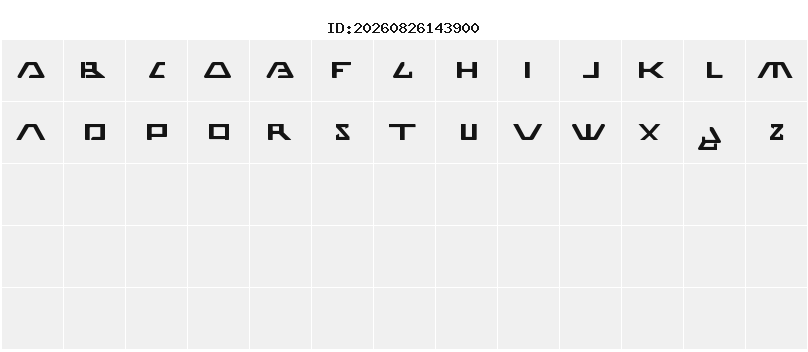
Walkman Preview
• Font Name: Walkman
• Full Font Name: Walkman
• Version: Version 1.00 August 17, 2004, initial release
About Walkman.ttf
Walkman.ttf is a modern, elegant sans-serif font designed for ultimate readability and visual harmony. Perfect for branding, headlines, web design, and print materials.